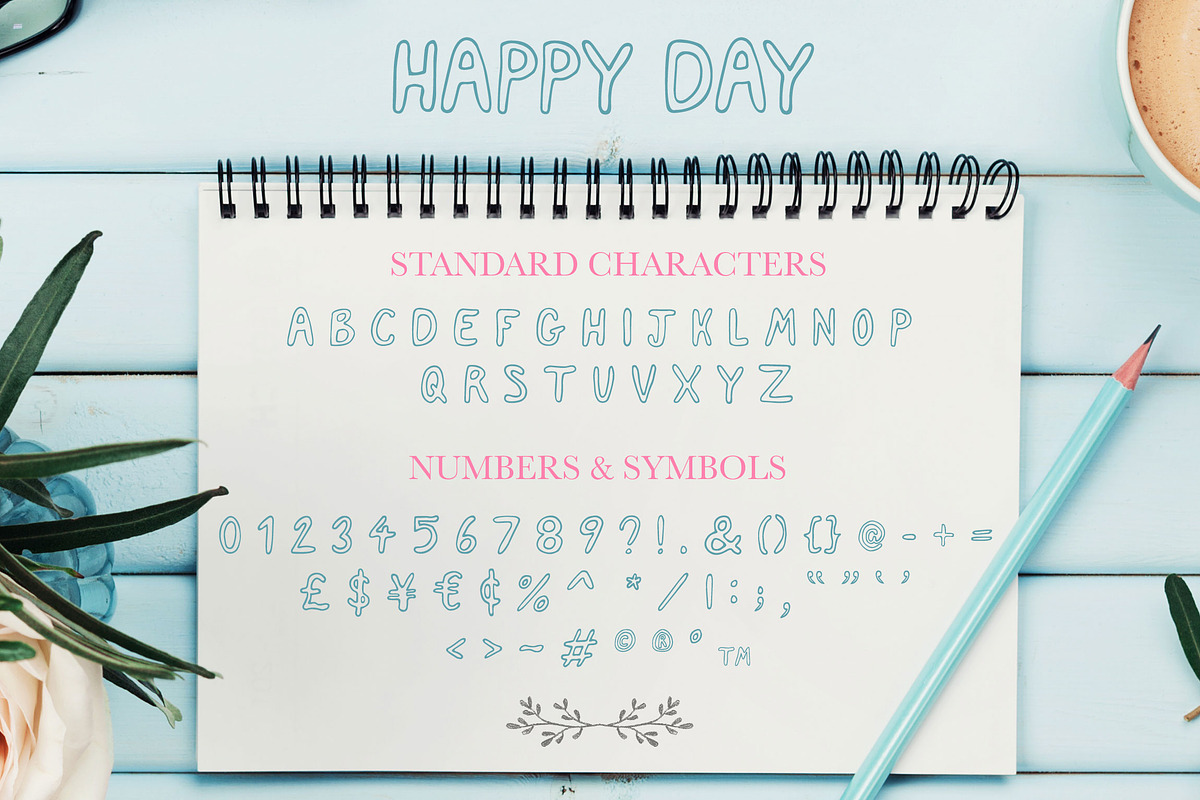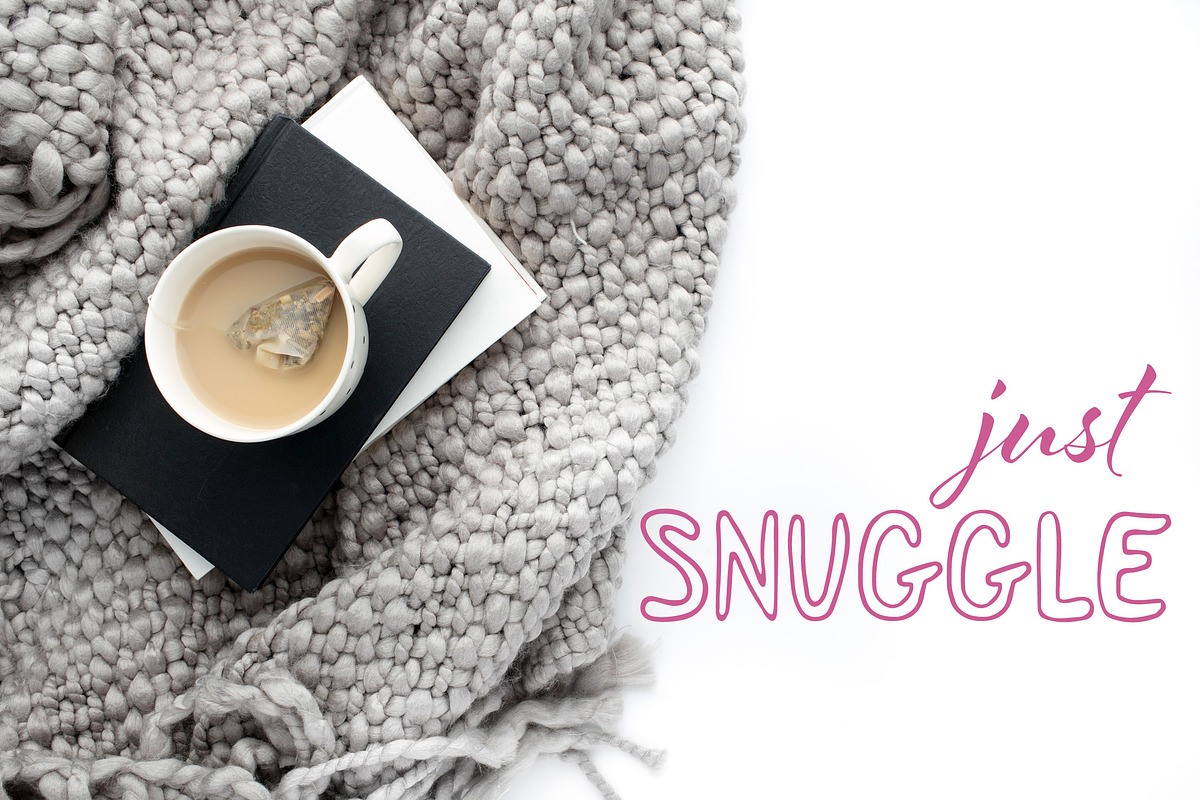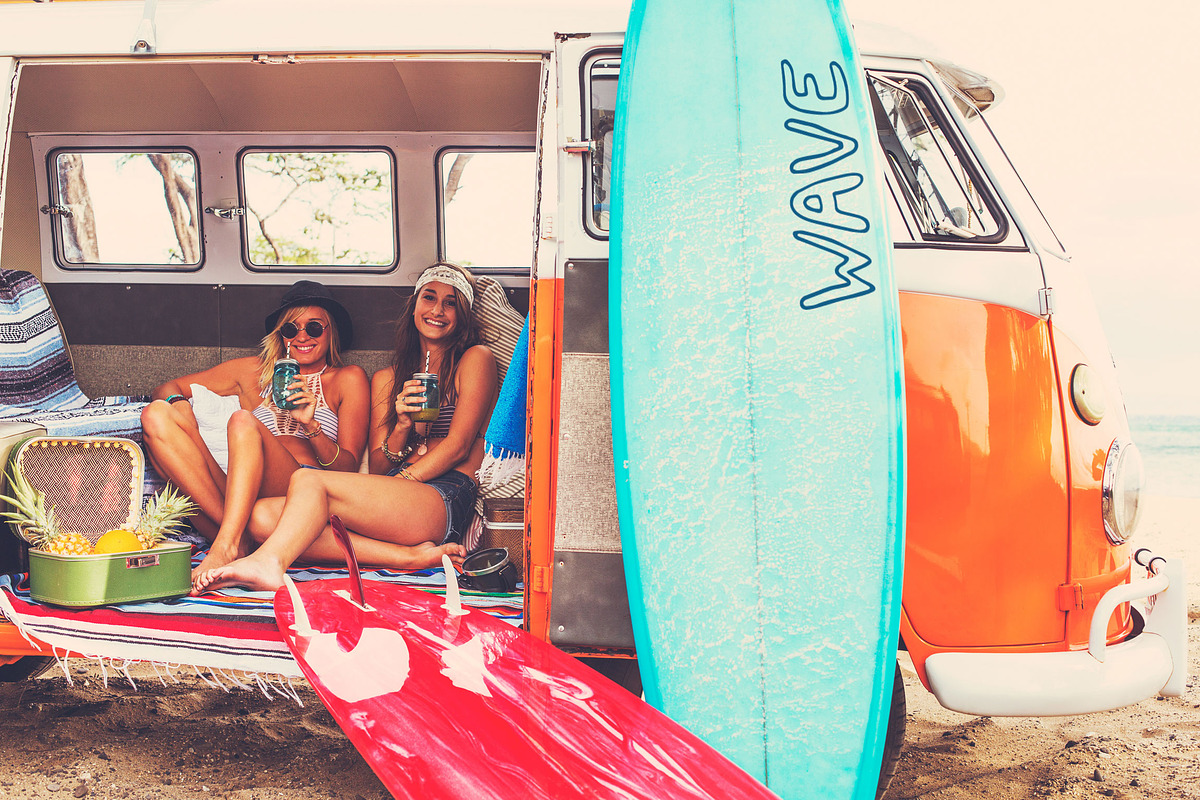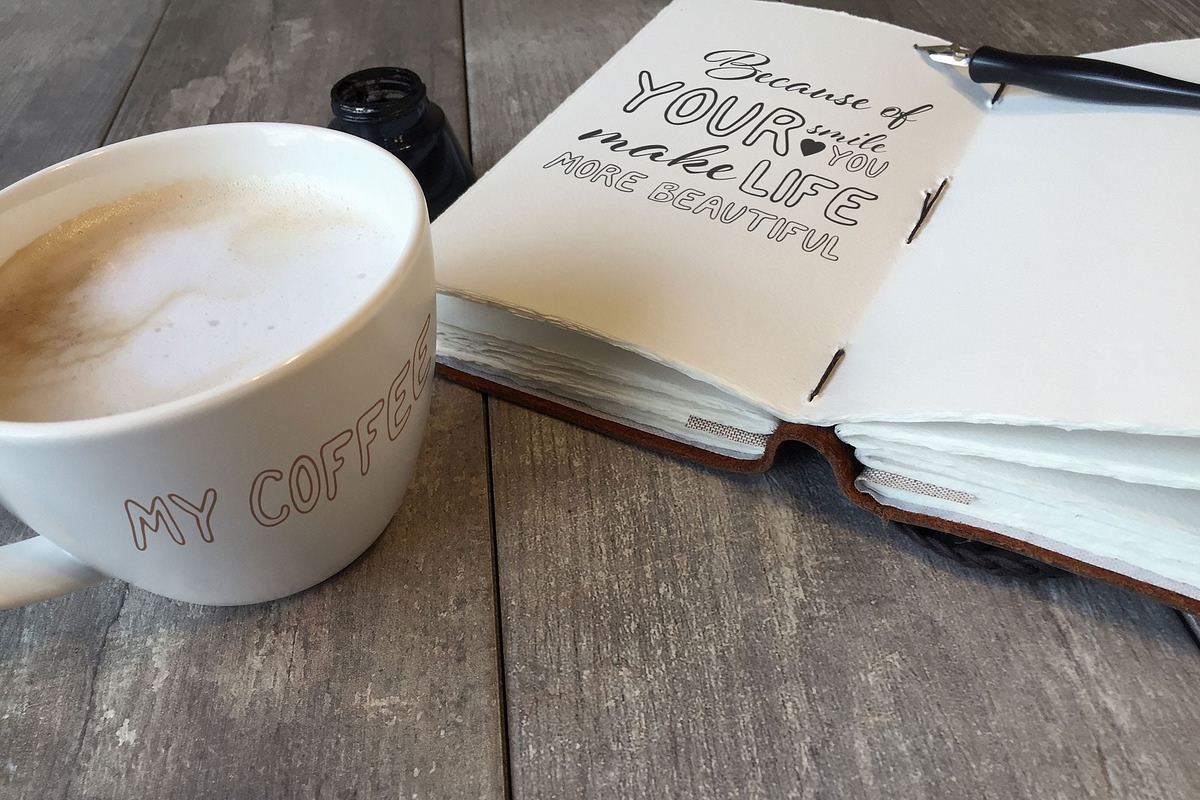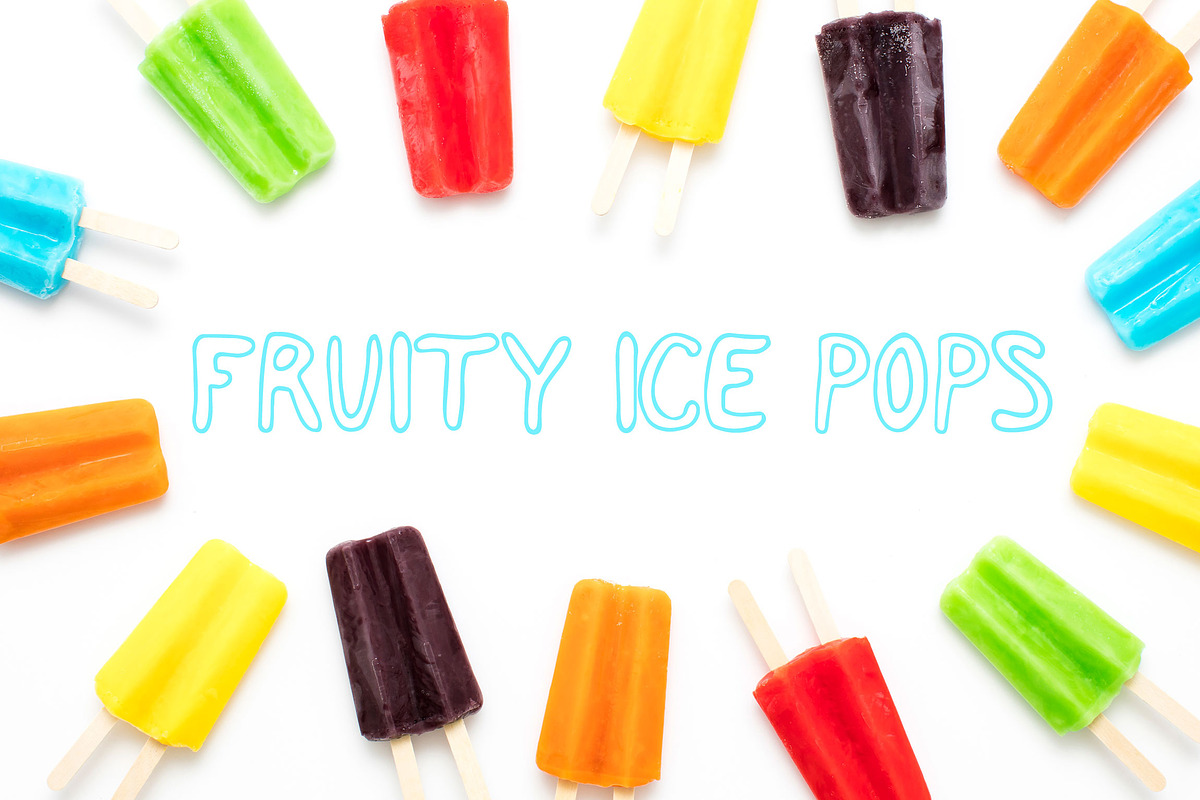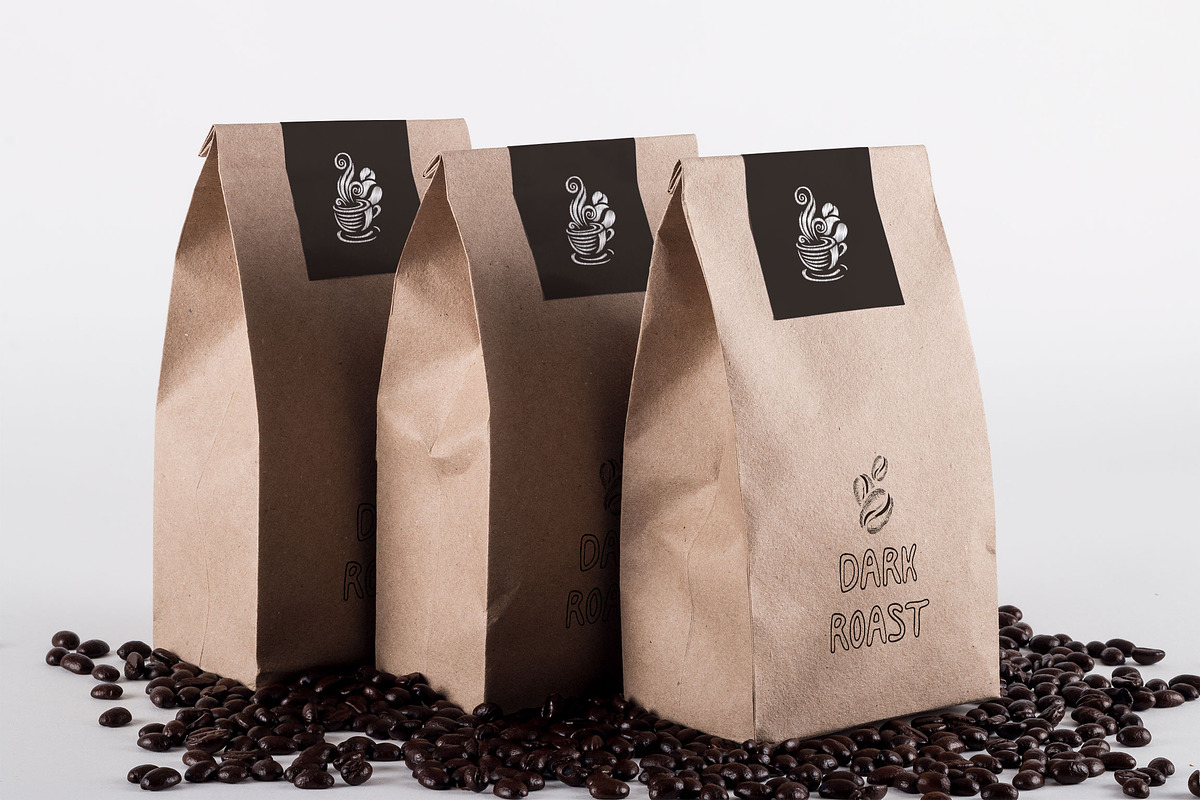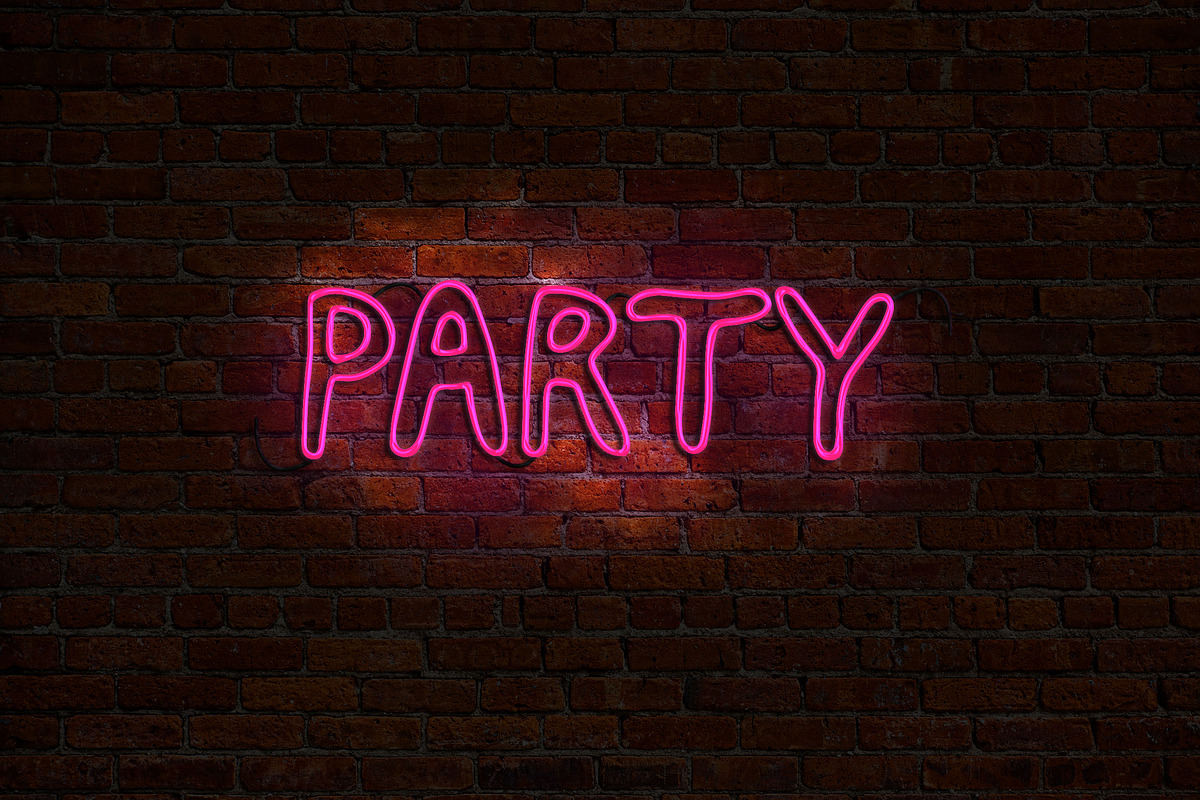
Happy Day Font
Welcome to Happy Day uppercase font - a fun and relaxed lettering all hand drawn by me :)
This is a perfect font when you are looking for something a little bit different and playful.